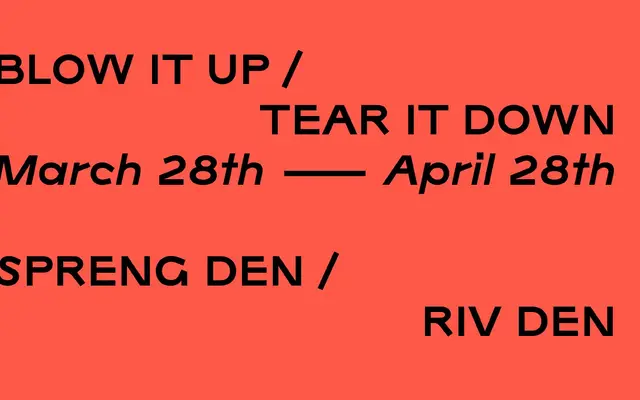
Viksjø
Monokrom · Frode Helland · 2019
A single-weight display face by Frode Helland, conceived as a typographic protest against the demolition of architect Erling Viksjø's Y-building in Oslo.
Frode Helland translated the ethical principles of Brutalist architecture into letterforms, originally casting the typeface in raw concrete for an exhibition protesting the Y-building's scheduled demolition. The face was released in 2019 and expanded in 2021 with lowercase and a matching italic. Its origins in a specific political and architectural moment give it a weight of meaning that most display typefaces never carry.
Viksjø draws explicitly on Brutalist architectural principles, translating the raw, uncompromising aesthetic of concrete construction into letterforms. Its single weight and activist origin place it firmly in the display category rather than as a workhorse text face.